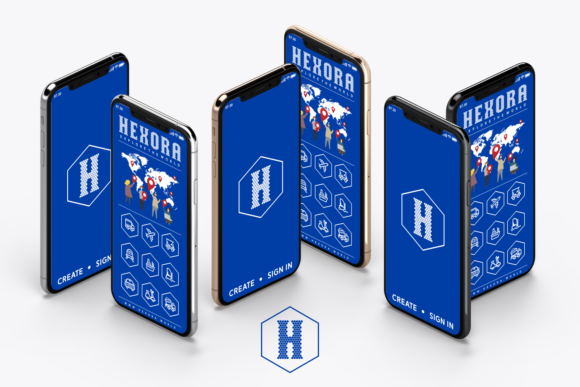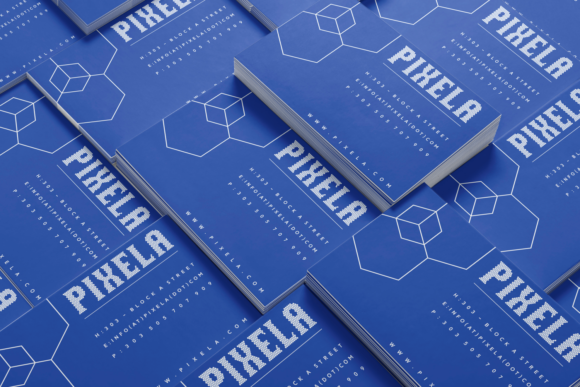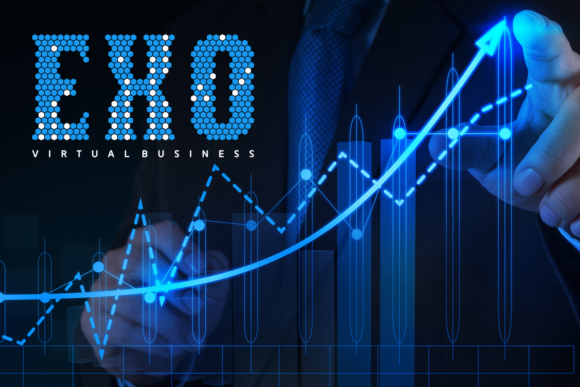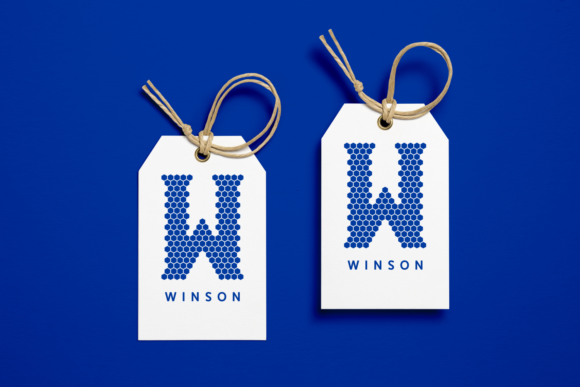
Introduction to Nuaz Font Font
Fonts play a crucial role in design, and the Nuaz Font font is a typeface that brings both character and versatility to any project. Whether you’re working on a branding project, a website, or a print design, the Nuaz Font font offers a unique style that can elevate your work.
The Nuaz is an unique display typeface.
The letters are made of small hexagons and give a technological feel to your design The small hexagons can be colored in and therefor give you the opportunity to create endless unique designs.
Key Features of Nuaz Font Font
Why Choose Nuaz Font Font?
The Nuaz Font font is more than just a typeface – it’s a design tool that helps you communicate your message with style and clarity. Its unique character set and versatile design make it suitable for a wide range of applications, from elegant invitations to bold headlines.
With its carefully crafted letterforms and balanced proportions, the Nuaz Font font ensures readability and visual appeal across all mediums.
What makes Nuaz Font font special?
The Nuaz Font font stands out with its unique design, exceptional readability, and versatility across various design applications.